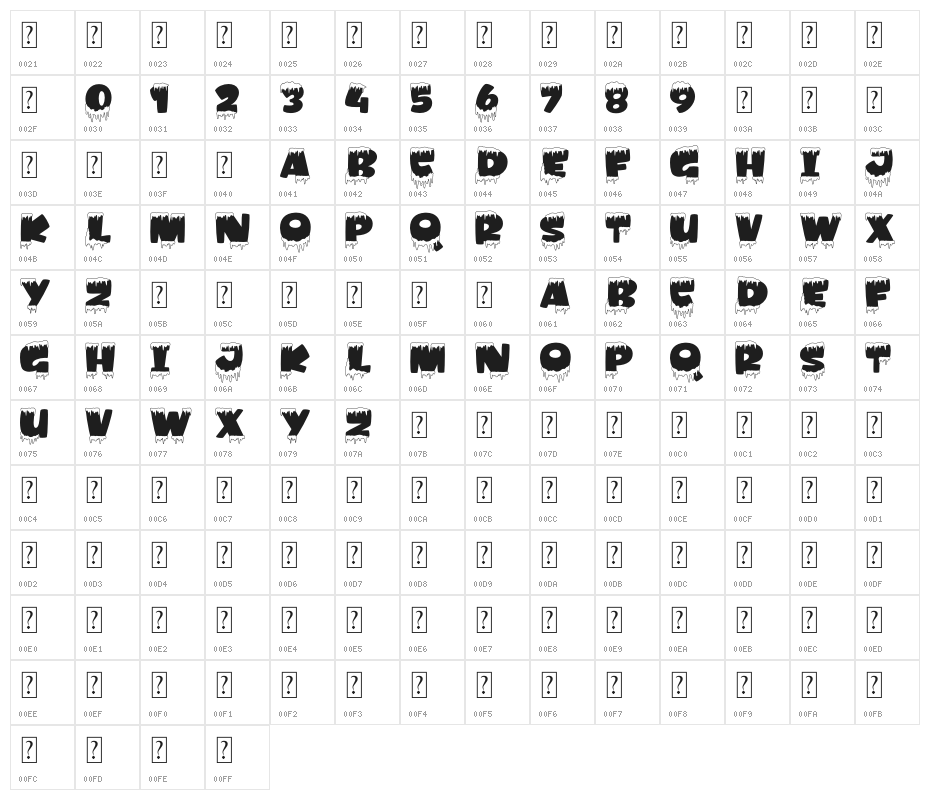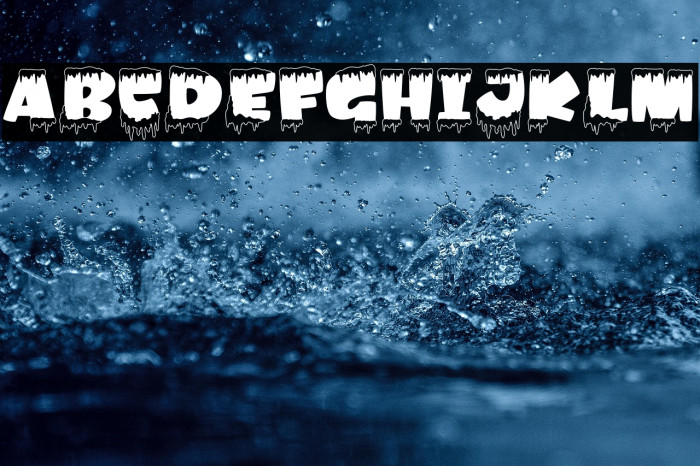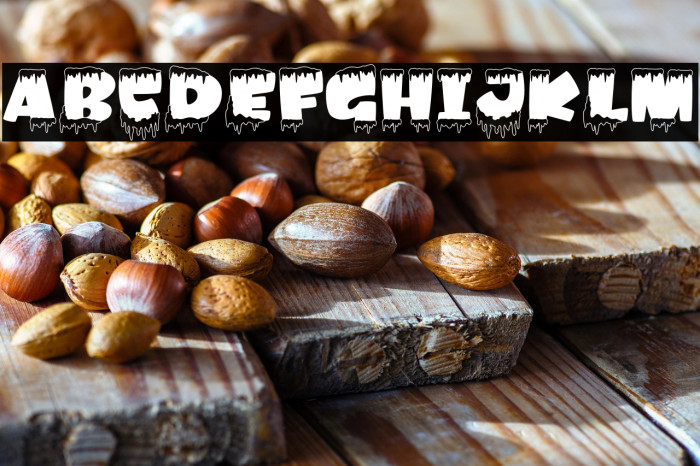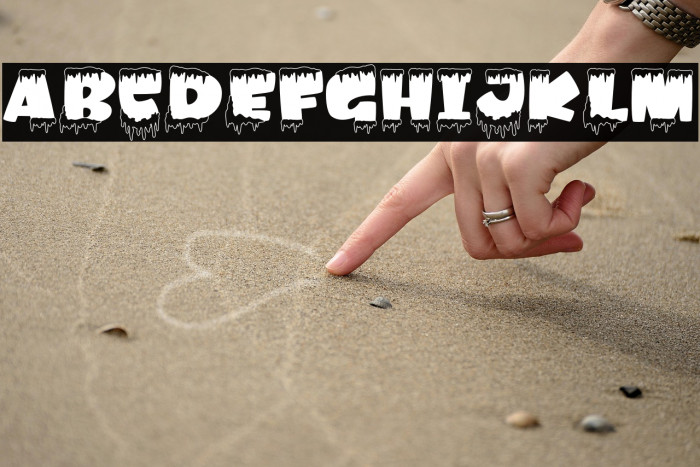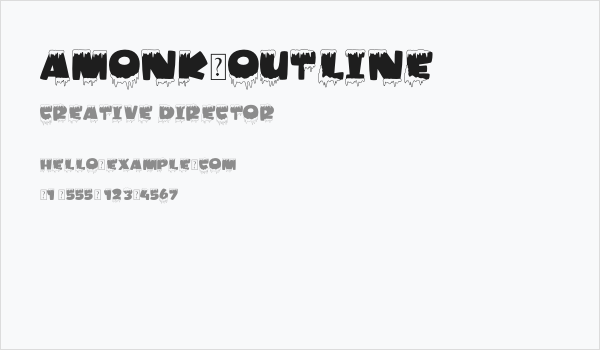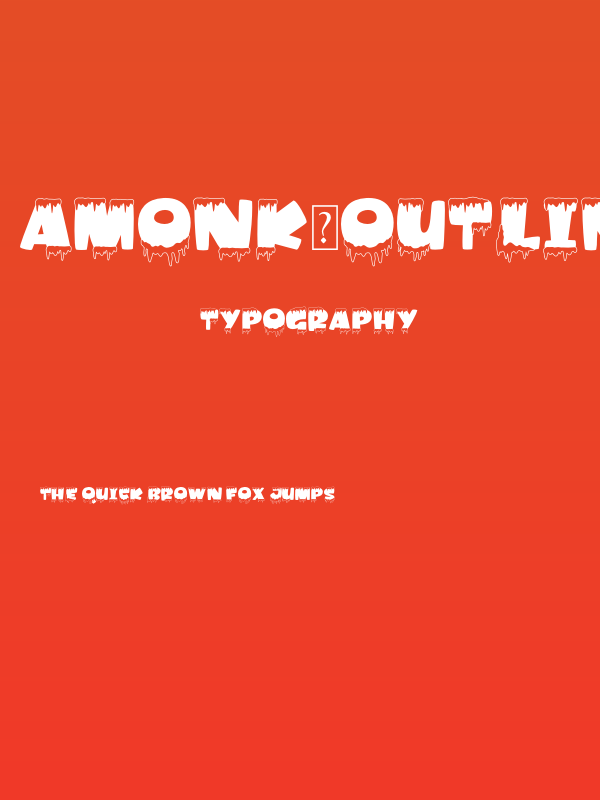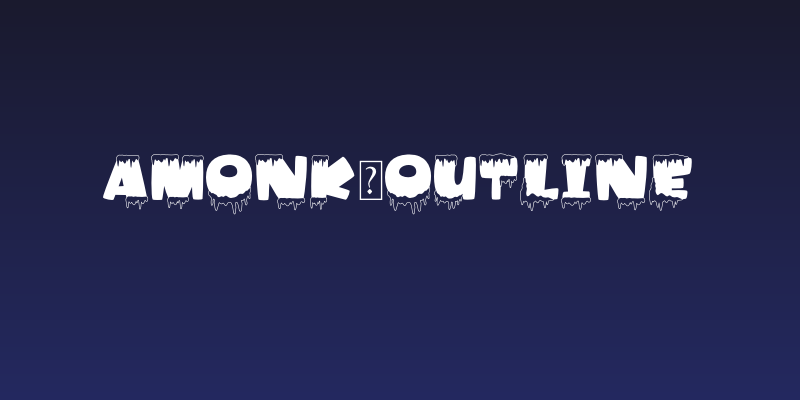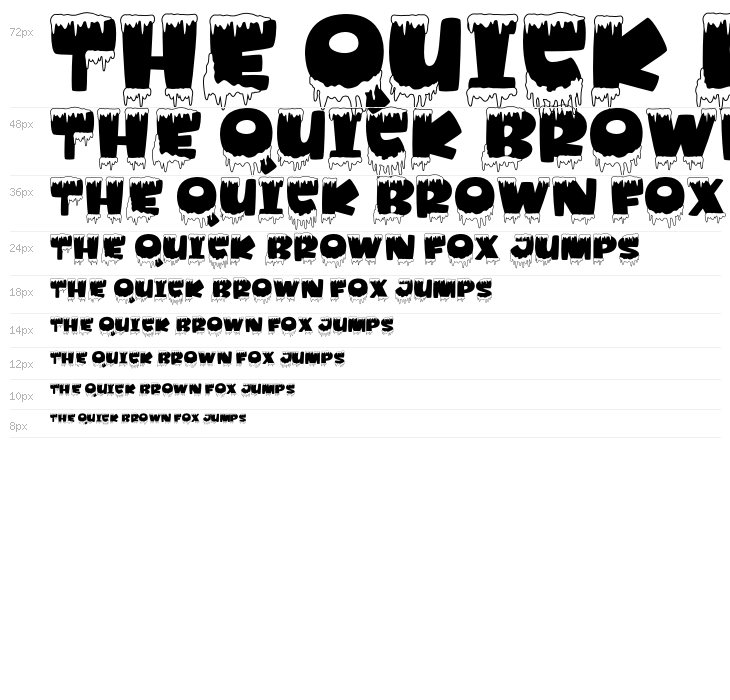
Amonk-Outline Font
| Caso d'uso | Headlines, Posters, Thematic Designs |
| Progetti proposti | This font is perfect for Halloween-themed designs, party invitations, posters, and any project that requires a playful or eerie touch. |